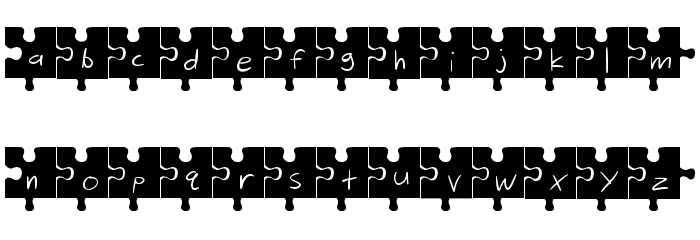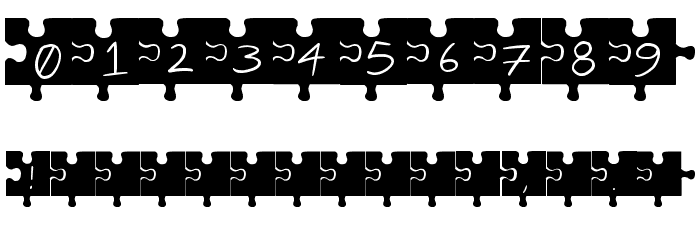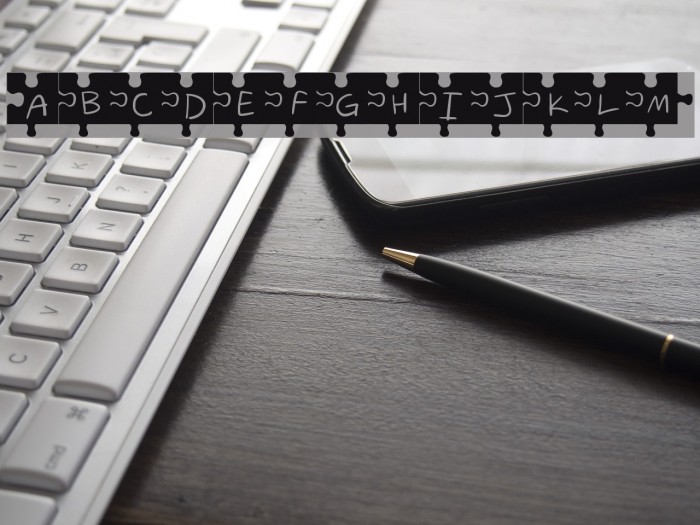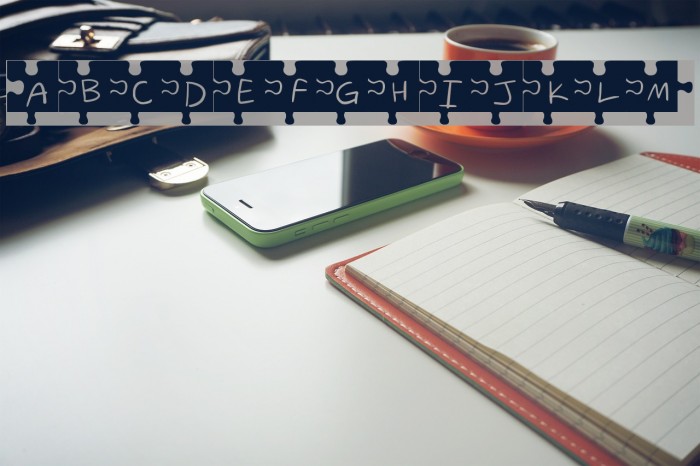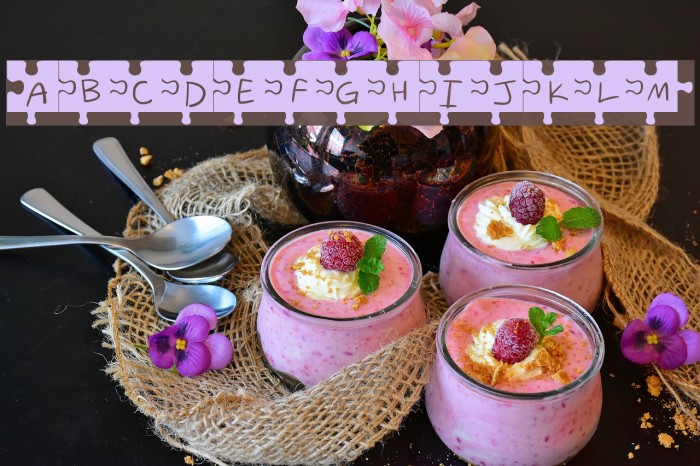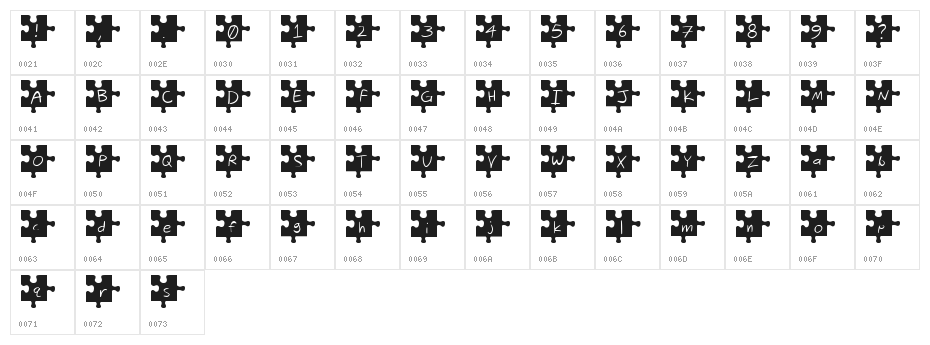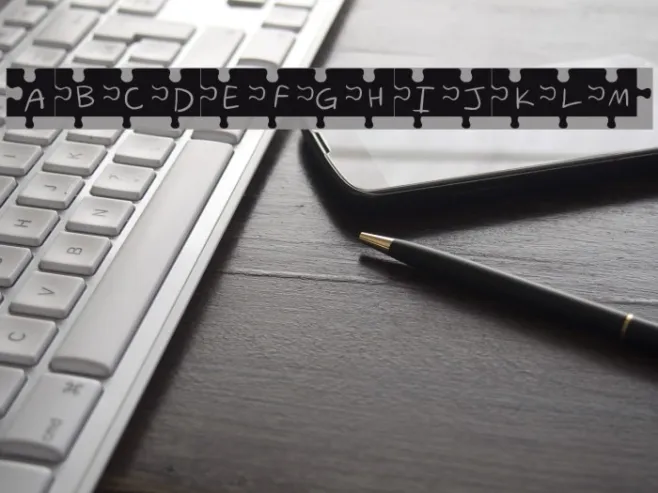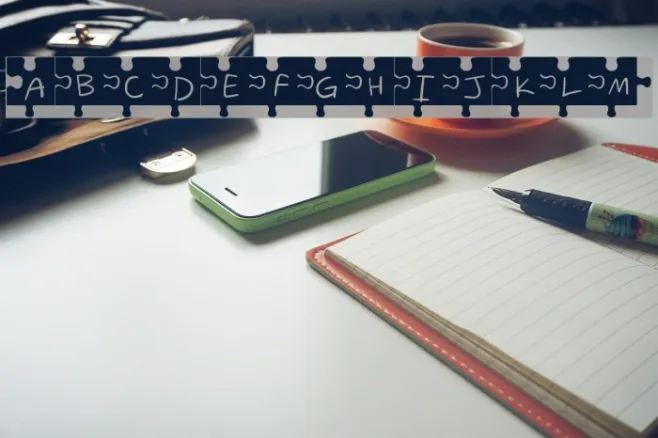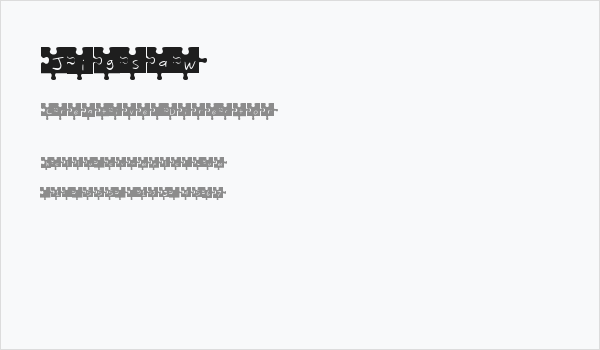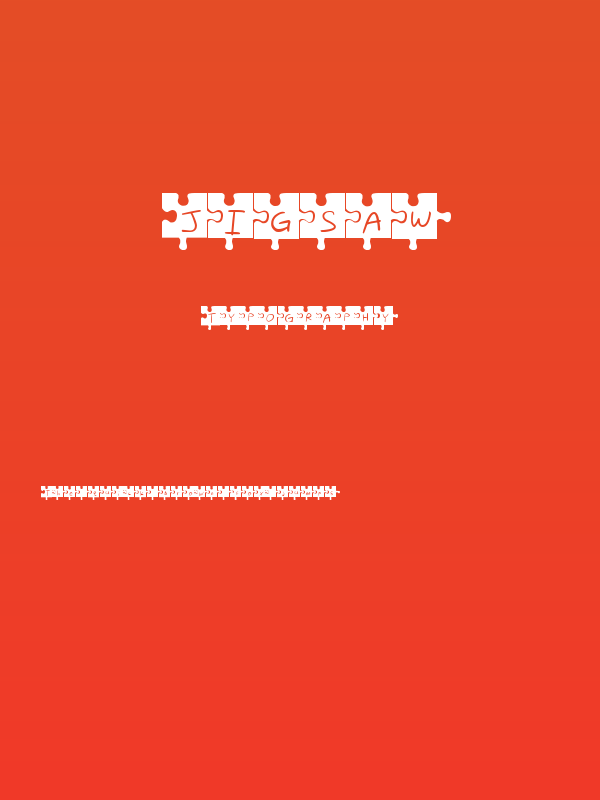
Jigsaw Font
This font features characters that are creatively integrated into jigsaw puzzle pieces, giving it a playful and unique appearance. Each letter and number is enclosed within a puzzle piece, with white lines defining the edges and interlocking tabs. The uppercase and lowercase letters maintain a consistent style, with a slight whimsical touch that adds to the overall charm. The numbers and special characters follow the same design, ensuring uniformity across the font. This design is ideal for projects that require a fun and engaging visual element.
A playful font with characters embedded in jigsaw puzzle pieces.
- Proposed Projects: Ideal for children's books, educational materials, puzzles, and playful branding.
- Overall Style: Playful